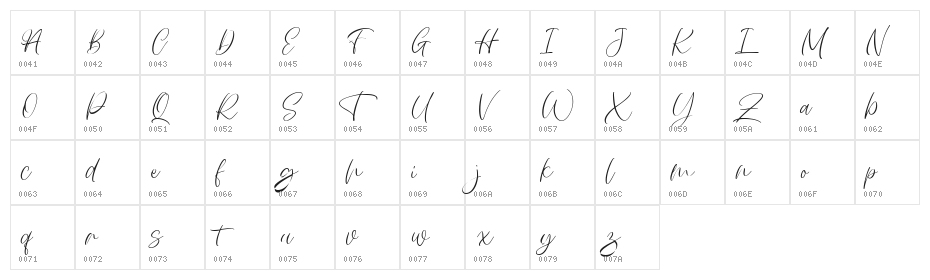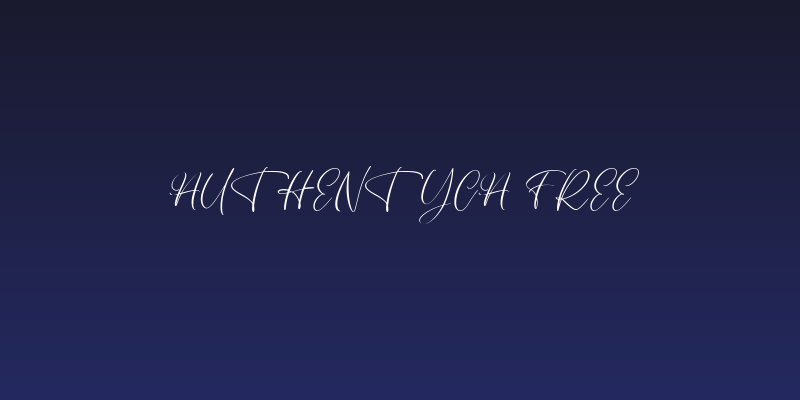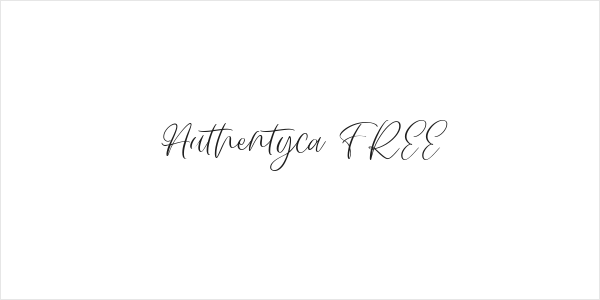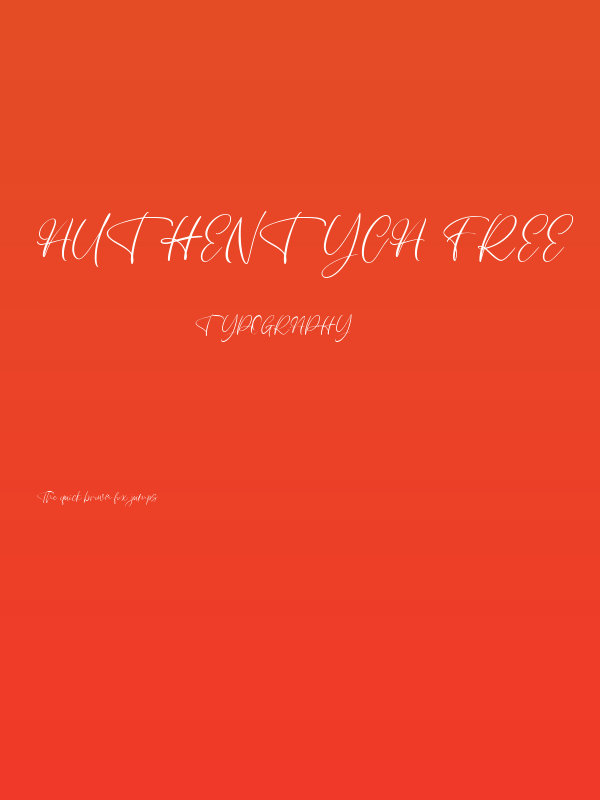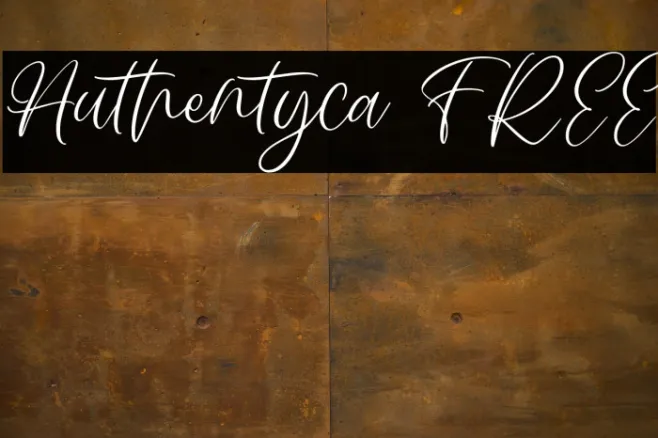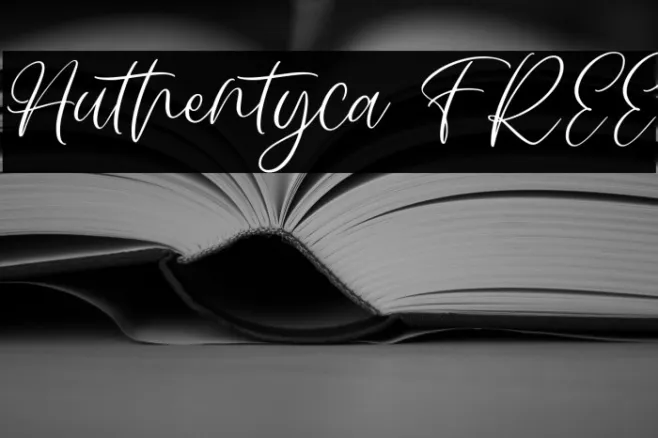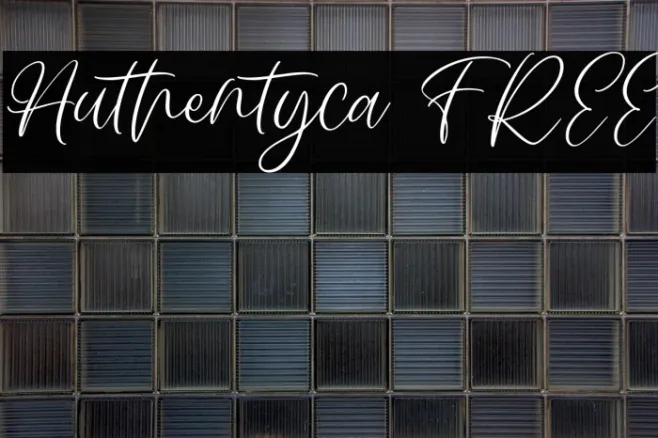
Authentyca FREE Font
Authentyca FREE Description
This font exhibits a flowing, cursive style with elegant, sweeping strokes that convey a sense of sophistication and grace. The characters are interconnected, creating a seamless and fluid appearance. The uppercase letters are bold and prominent, while the lowercase letters maintain a delicate balance with their intricate loops and curves. The overall design is reminiscent of traditional calligraphy, yet it maintains a modern twist with its clean lines and refined structure. The font's aesthetic is both artistic and readable, making it suitable for a variety of creative applications.
| Proposed Projects | Ideal for wedding invitations, greeting cards, branding projects, and elegant logo designs. |